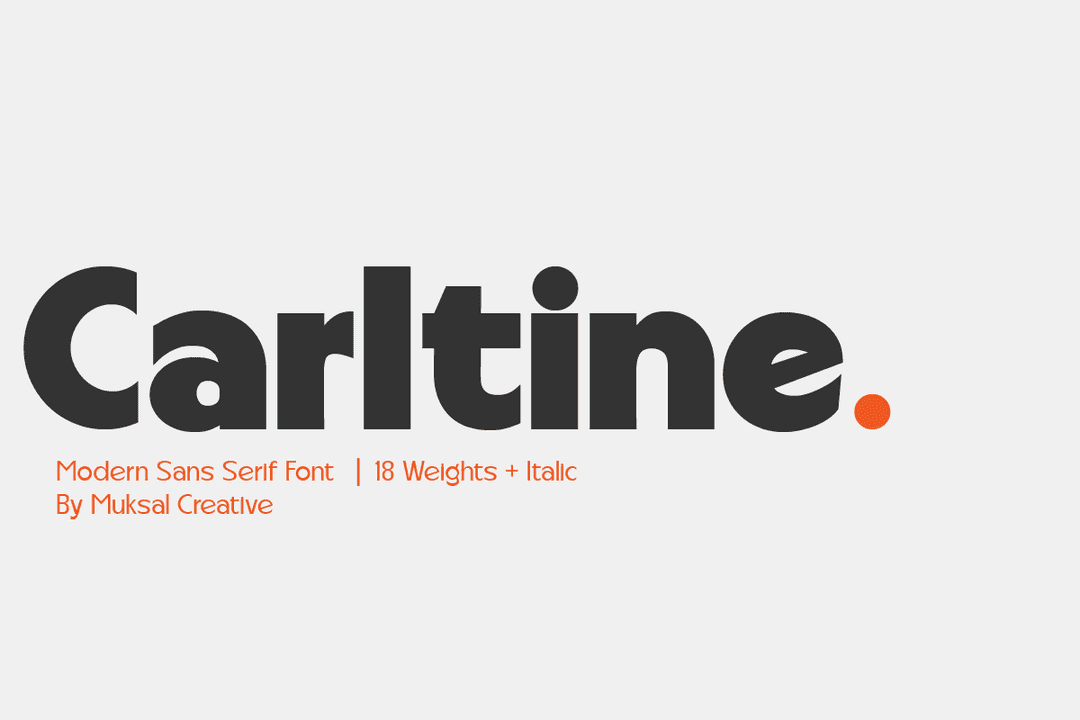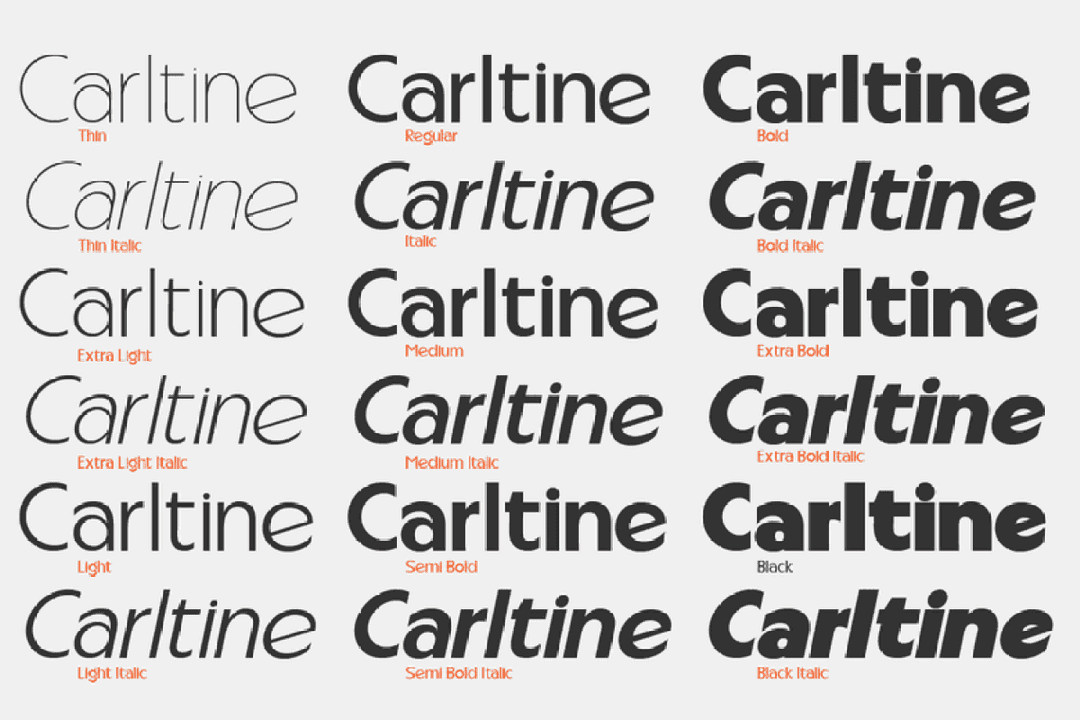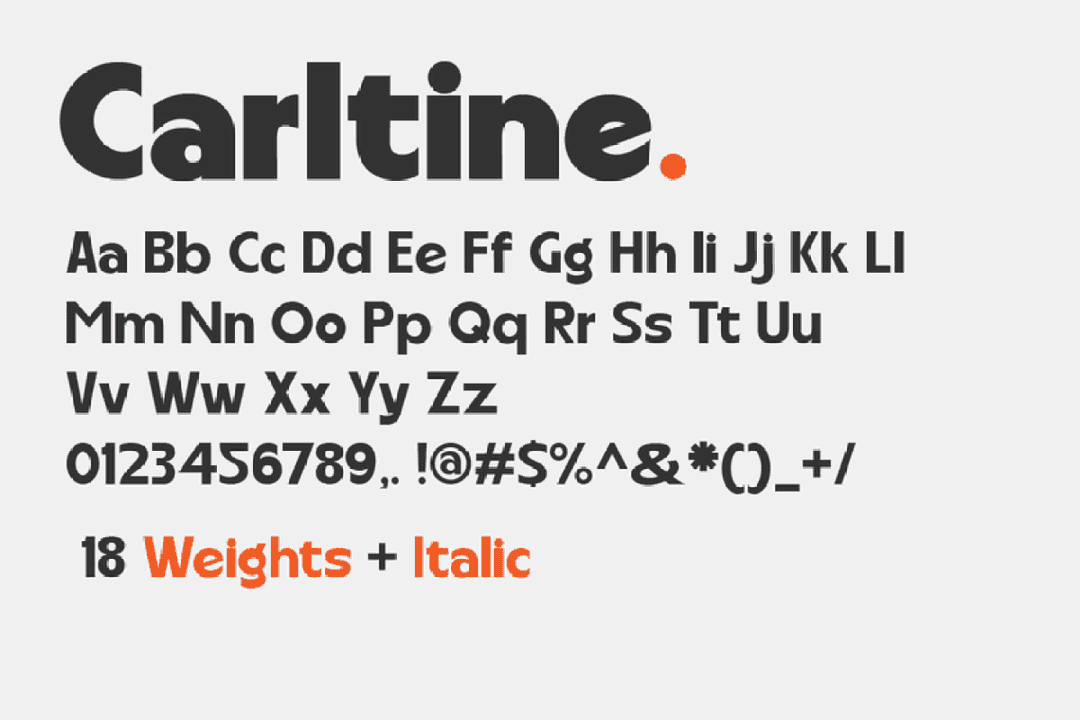
Carltine is an outstanding example of modern sans serif font design, seamlessly fusing precision and simplicity for maximum effect. Simply Conception boasts 18 families of Regular and Italic fonts from thin thin fonts up to massive black ones for versatile usage in posters, magazines branding campaigns, websites or anywhere else you need typeface. This flexible font can also be found suitable for posters.